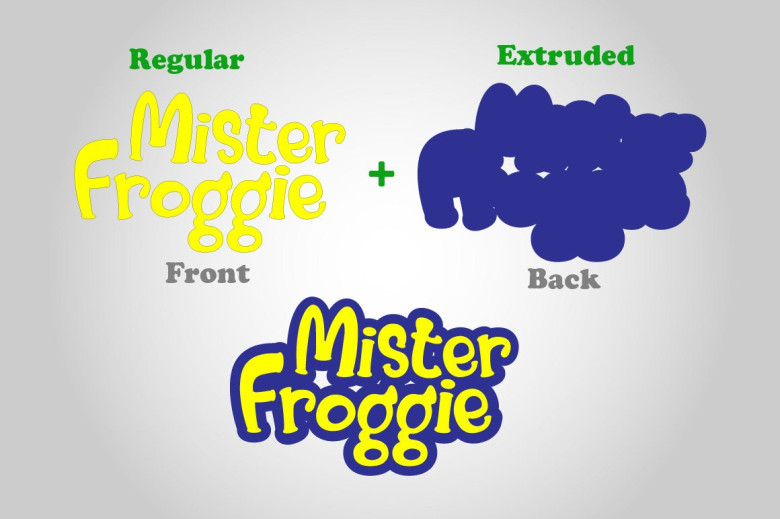
Mister Froggie Playful Font
Hi designer. Introducing Mister Froggie Font. It is designed and shared by Donis Miftahudin. Mister Froggie is playful font with extruded font. This font will be suitable for logo, branding projects, product packaging,quotes, book covers,greeting card and all your other lovely projects. Mister Froggie comes with playful style and combined with extruded font, It contains a full set of lower & uppercase letters, a large range of punctuation, numerals, multilingual support and many cute alternates.